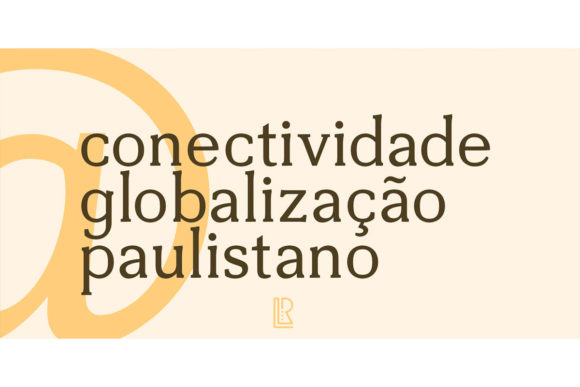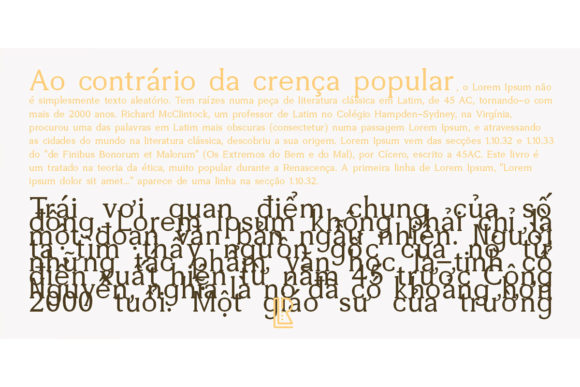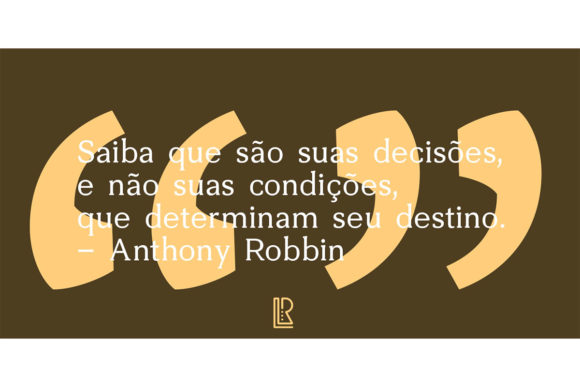
Have you ever been stuck in front of a blank page, staring at a blank canvas, and suddenly, the perfect font just pops into your mind? For many designers, this is the moment when the creative wheels start turning. And for those who’ve been searching for the perfect typography to bring their ideas to life, we’ve got some exciting news. Introducing the Ernon Font, a cool and adaptable serif font that’s designed to make your text shine in any medium.
Whether you’re working on a book, a business report, or a poster, the Ernon Font is the perfect choice. Its versatility and readability make it an invaluable asset for designers. With the Ernon Font, you can create stunning visuals that capture your audience’s attention and communicate your message effectively. Whether you’re a seasoned designer or just starting out, the Ernon Font is a valuable addition to your toolkit.
- Unique Characteristics: Ernon Font features a unique blend of modern and classic design elements, making it suitable for a wide range of applications, from corporate branding to creative projects.
Ernon Font Review
I recently had the chance to work with the Ernon Font, and I must say it’s a mixed bag. Let’s start with the good stuff: ✨ Unique Character Set – Ernon Font comes with a wide range of unique characters, including Cyrillic and Greek alphabets, which is a big plus for designers who need to cater to a global audience.
✨ High-Quality Glyphs – The font’s glyphs are well-designed and look great at various font sizes. The font also supports ligatures, which can add a touch of elegance to your design.
Limits and Drawbacks
⚠️ Limited Font Weight Options – Ernon Font only comes in three font weights: regular, bold, and italic. This might be a limitation for designers who need more font weight options for their project.